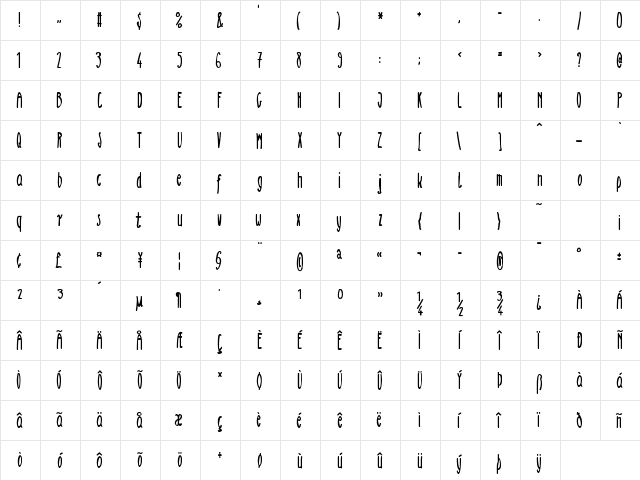
zai Thin Handwritten Lettering Regular Font Preview
Design Context for zai Thin Handwritten Lettering Typeface
zai Thin Handwritten Lettering brings a calligraphic fluidity to the page — its connecting strokes and expressive curves give it an unmistakably human quality. The delicate stroke weight brings airiness and refinement to layouts.
Font Pairing: Combine zai Thin Handwritten Lettering with a simple geometric sans for maximum contrast — the tension between flowing curves and clean structure is a classic typographic pairing.
Pro Tip: Use zai Thin Handwritten Lettering for short runs of text — names, titles, or taglines. Extended body copy in script faces tires the eye quickly.